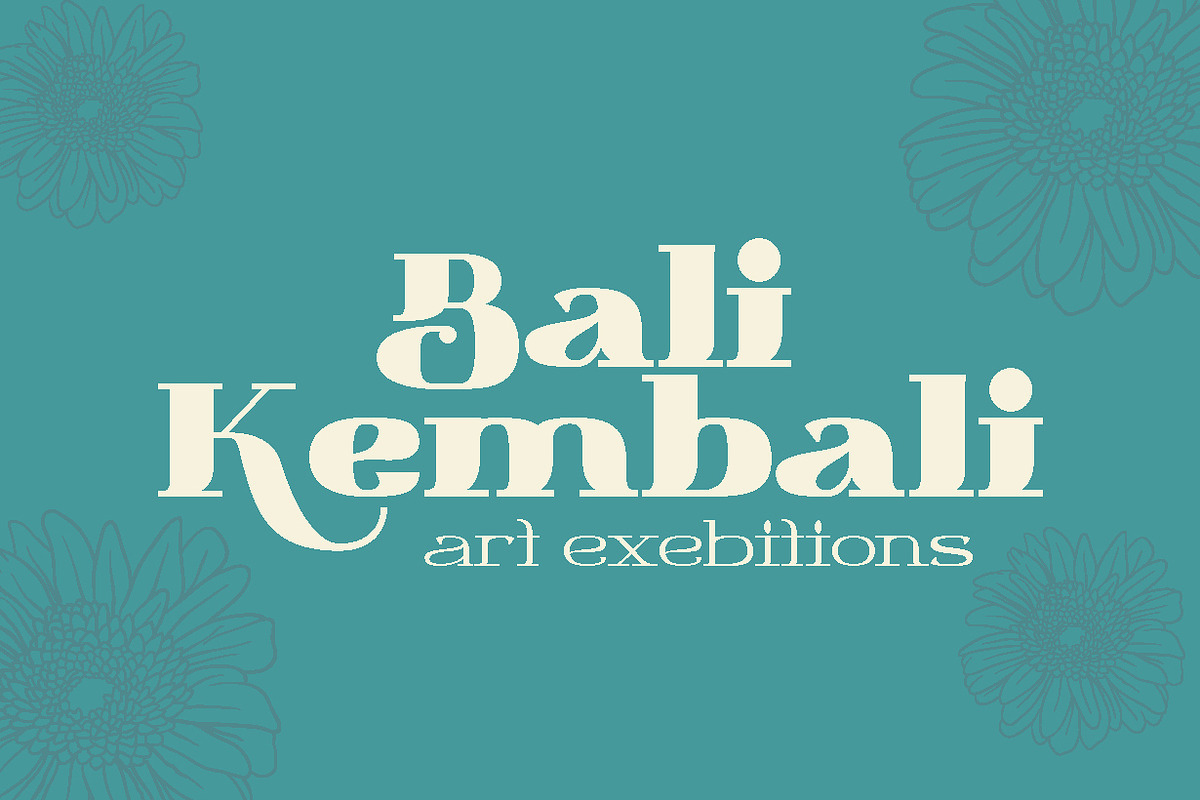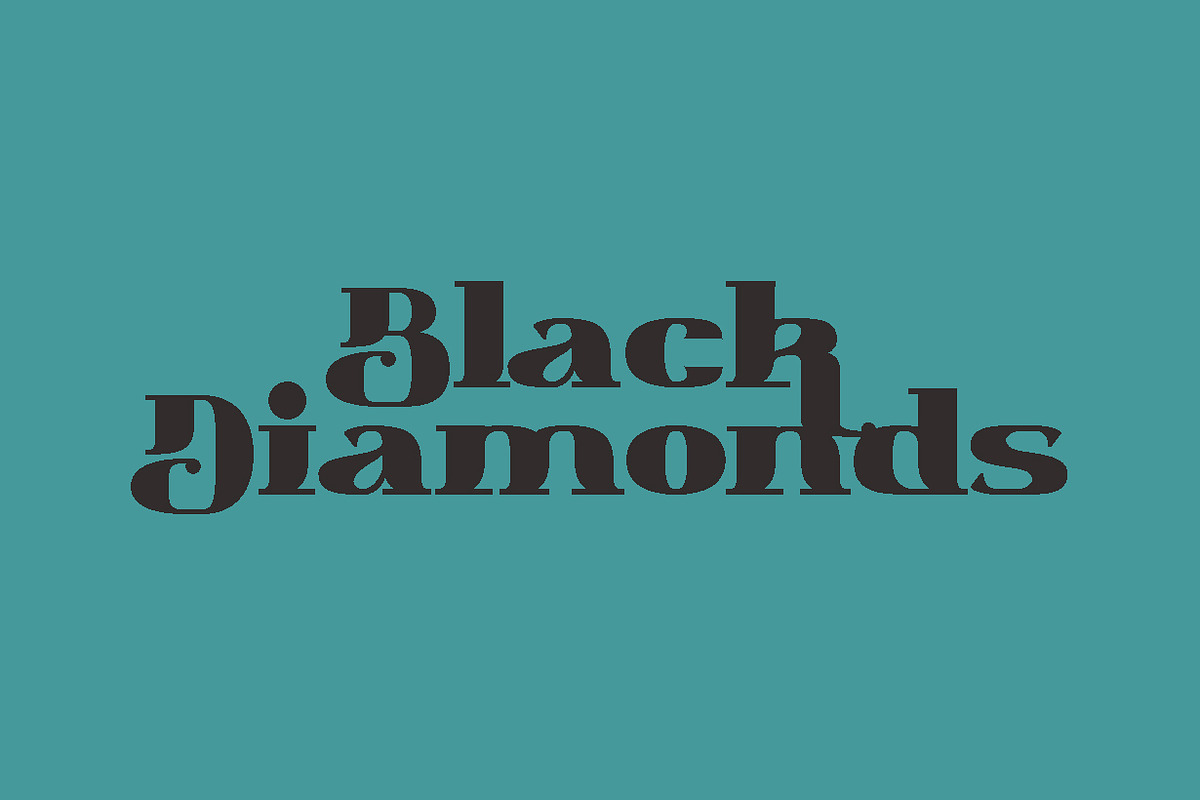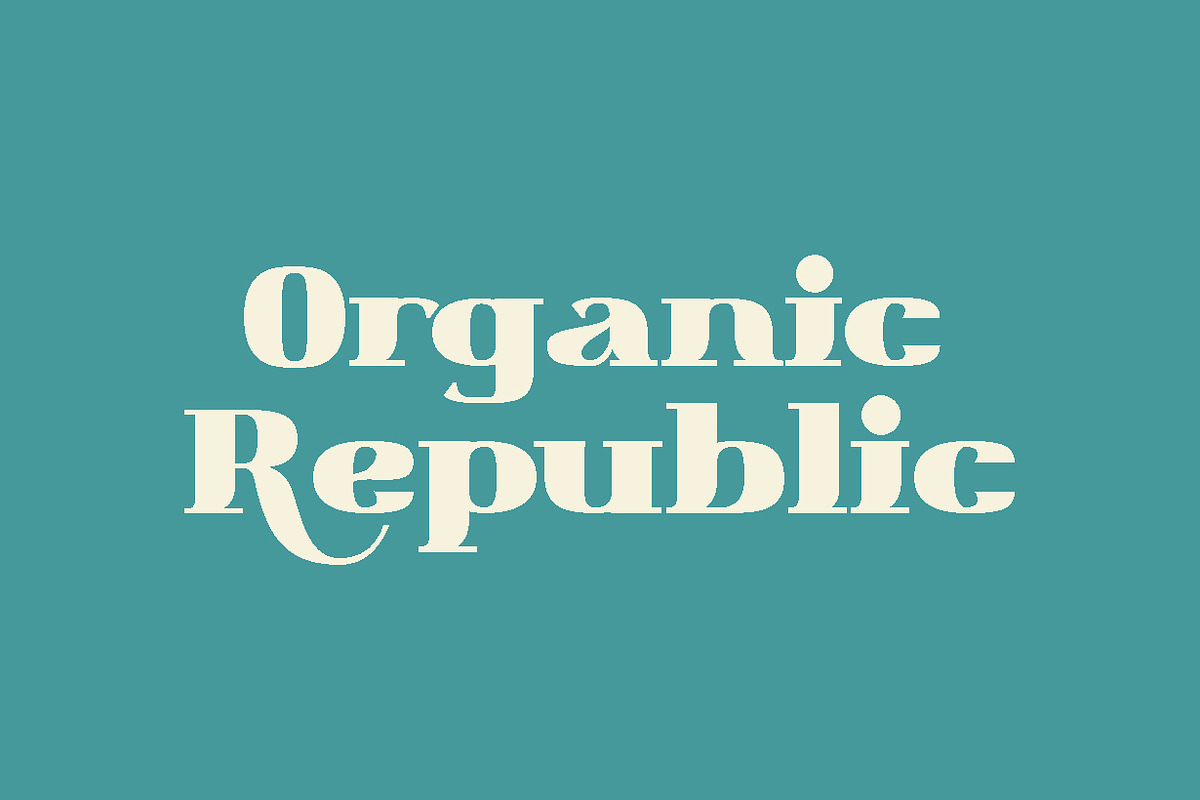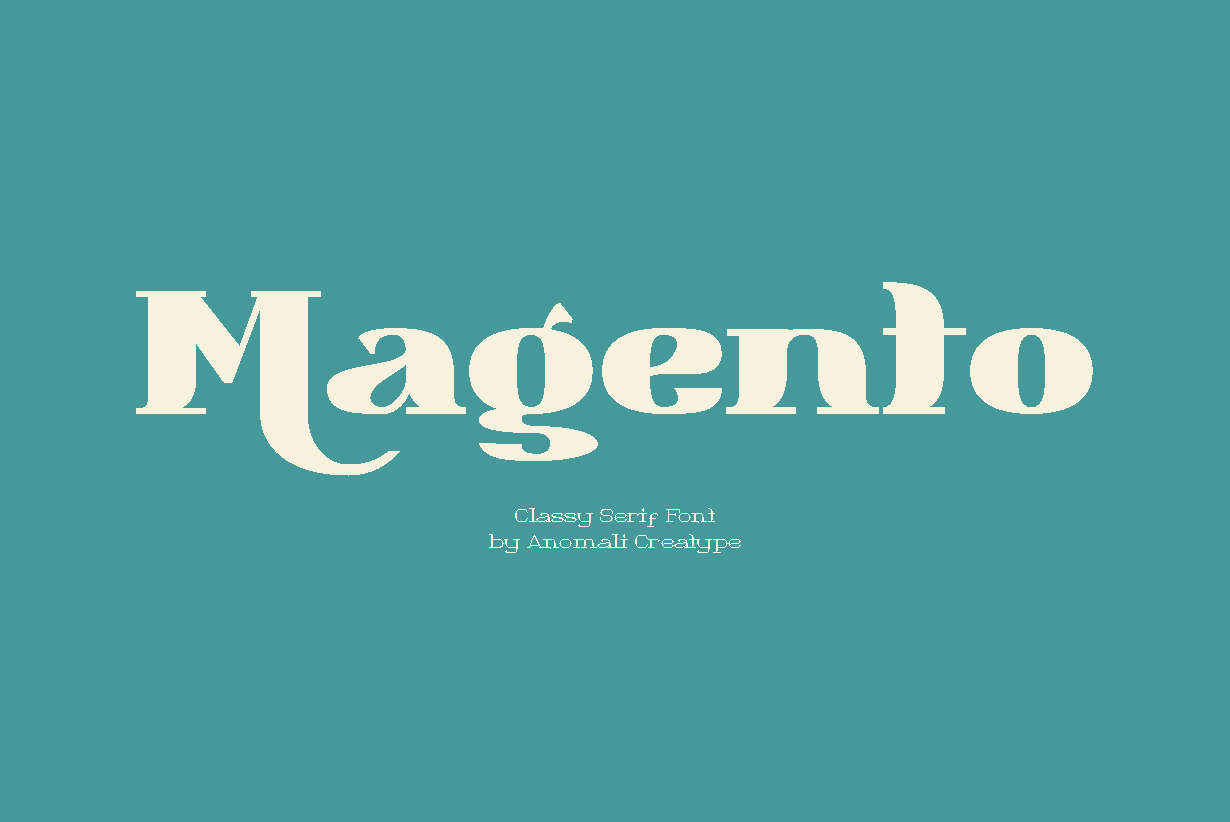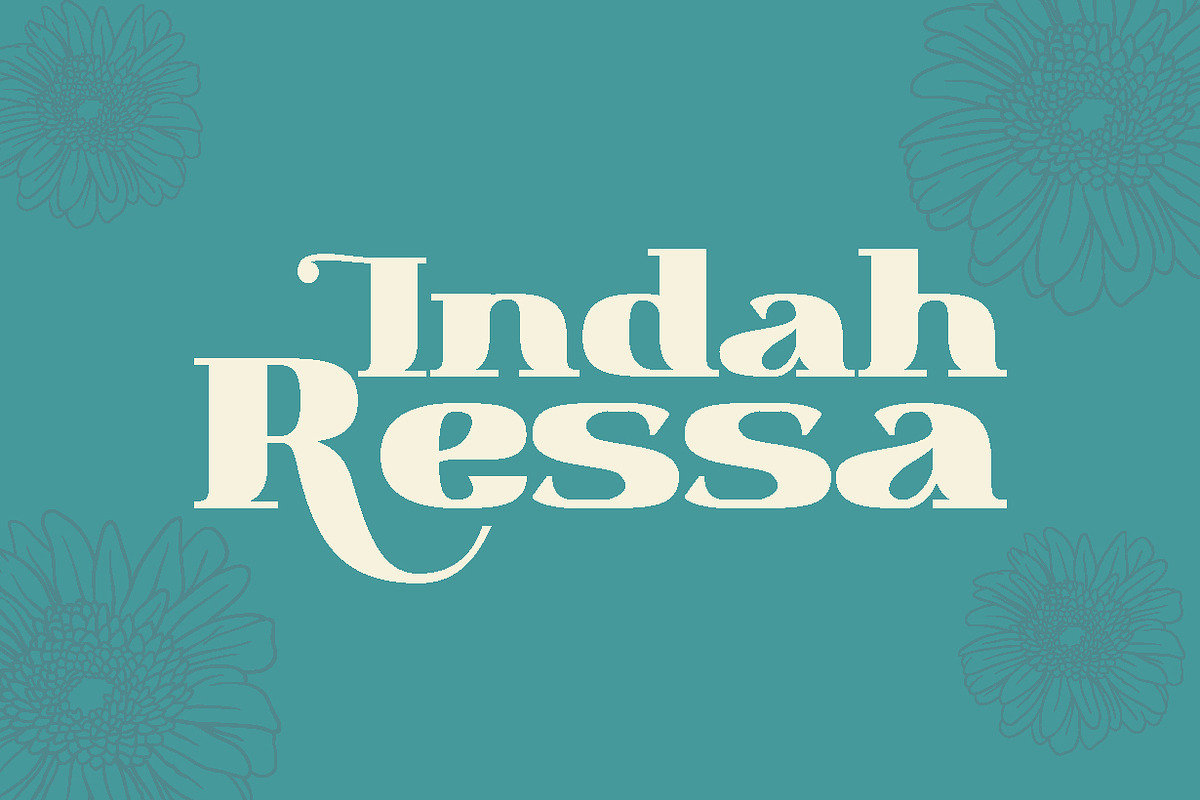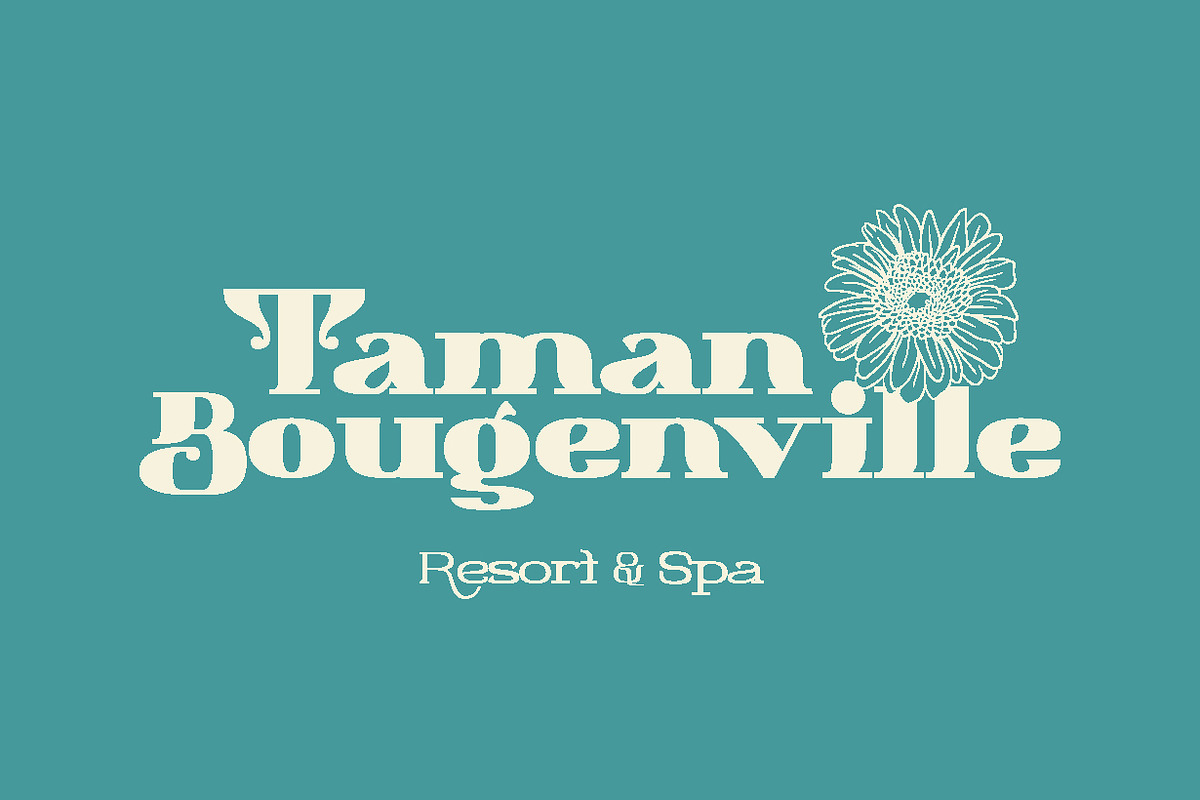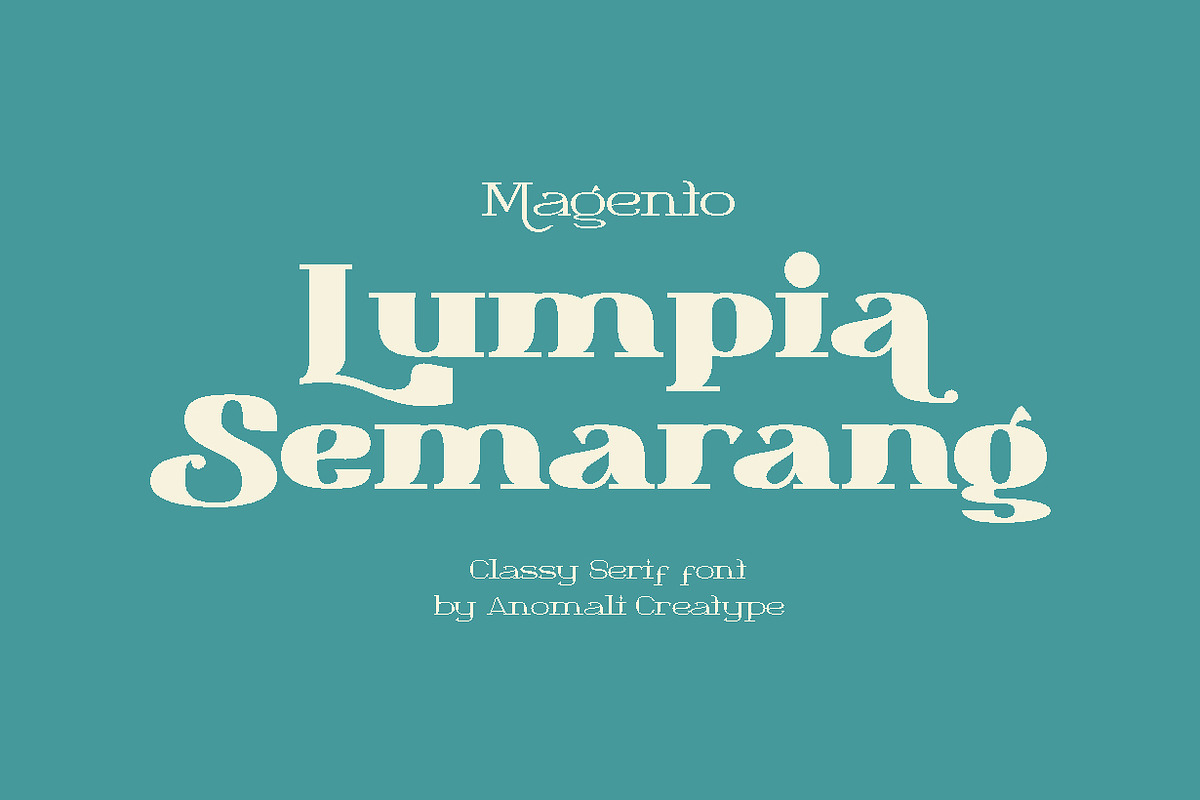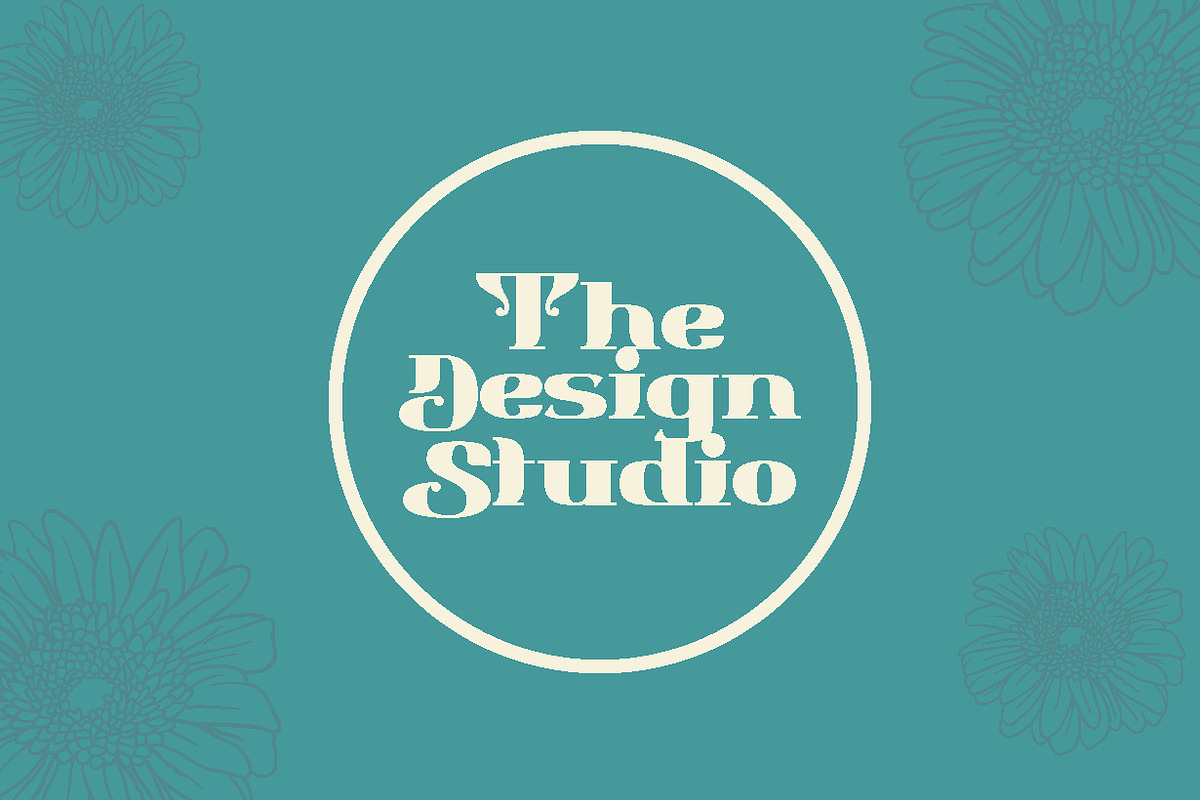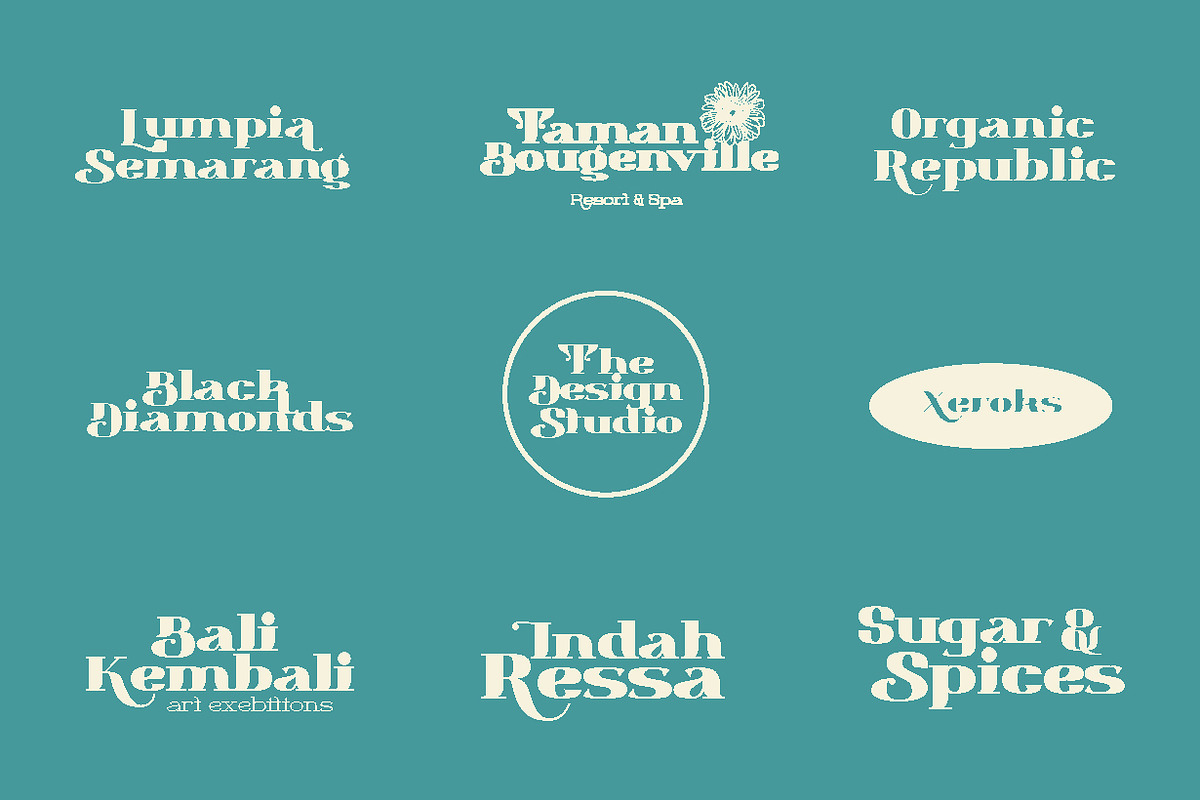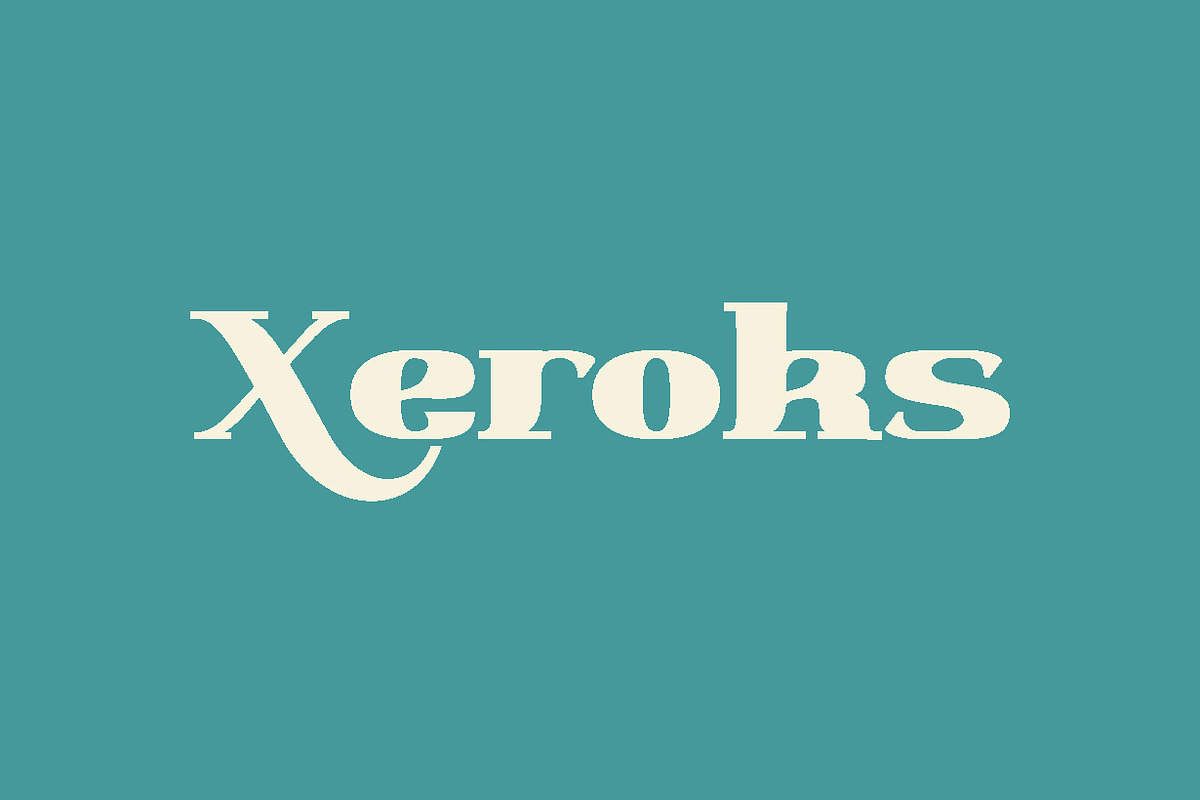
Magento Retro Display Serif Font
Introducing MAGENTO
MAGENTO is a stylish font It has both modern and retro look - clear, modern and fun. Helps to create layout design in 60s or 70s design projects.
This MAGENTO Family has 9 weights from thin to black, and Italic version on it
- Unique letterforms